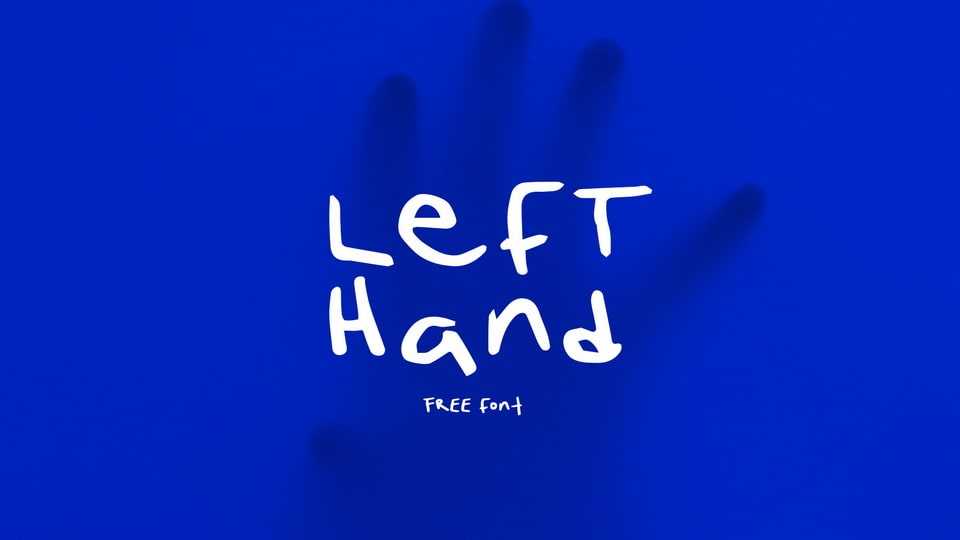
Download Left Hand font, a freely designed handwriting typeface created to evoke a sense of freedom and space, breaking traditional lines and experimenting with varying sizes, making it unsuitable for perfectionists.
Designer: Manuel Escalante